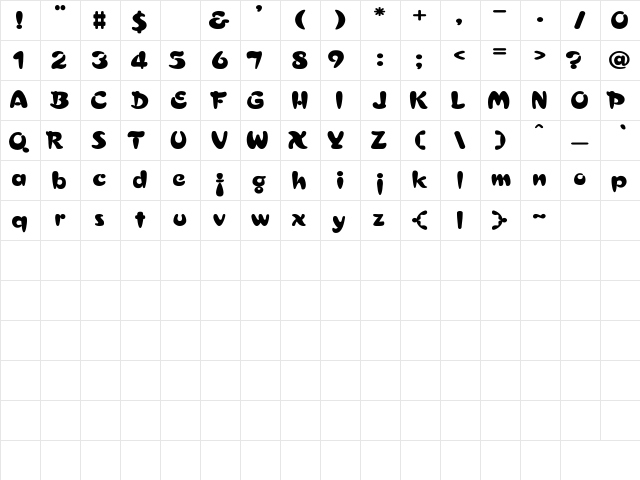
Electrik Wd Regular Free Font
Electrik Wd Regular
Design Context for Electrik Wd
Electrik Wd is a composed and adaptable typeface that performs quietly and consistently across a wide range of design contexts.